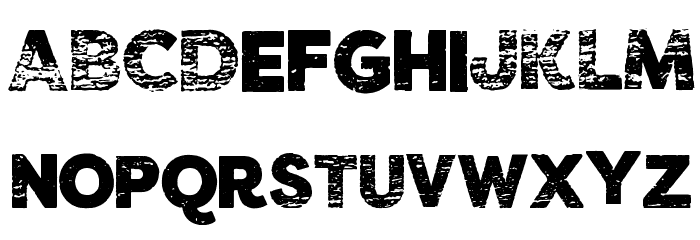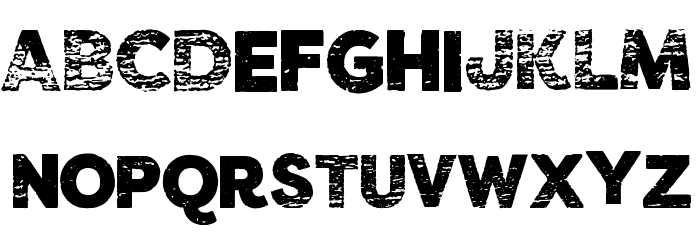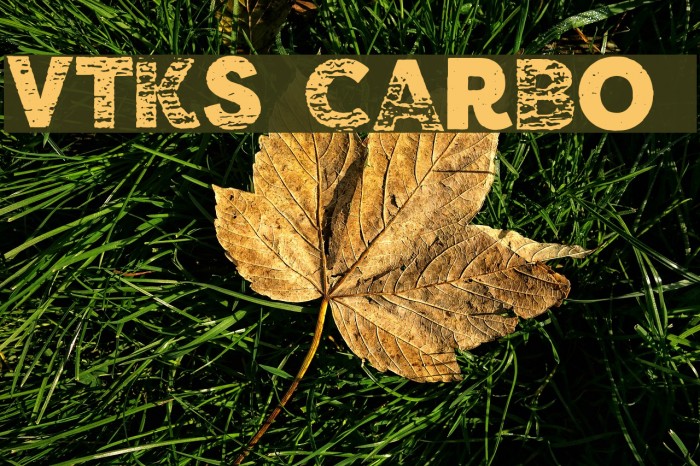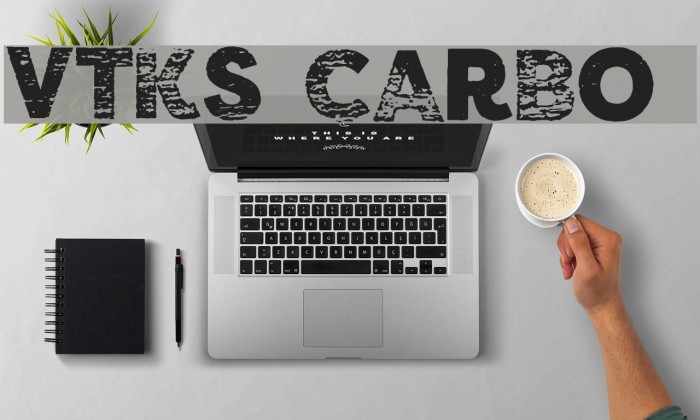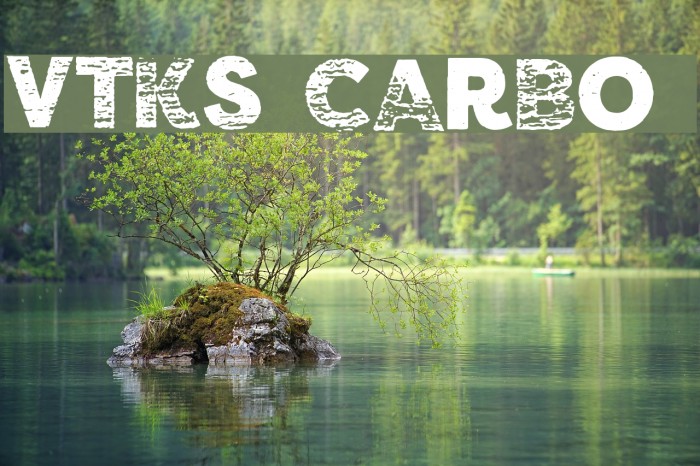
vtks carbo 753 Font
This font features a bold and distressed style, characterized by its textured, worn appearance. Each letter is filled with a rough, grunge-like texture that gives it a rugged and edgy look. The uppercase letters are uniform in size, with a strong presence that makes them stand out. The font's design is reminiscent of vintage or industrial aesthetics, making it suitable for projects that require a bold statement. Its unique texture adds depth and character, making it ideal for eye-catching headlines or artistic designs.
- Proposed Projects: Ideal for posters, album covers, branding, and any design that requires a bold, vintage, or industrial aesthetic.
- Overall Style: Vintage